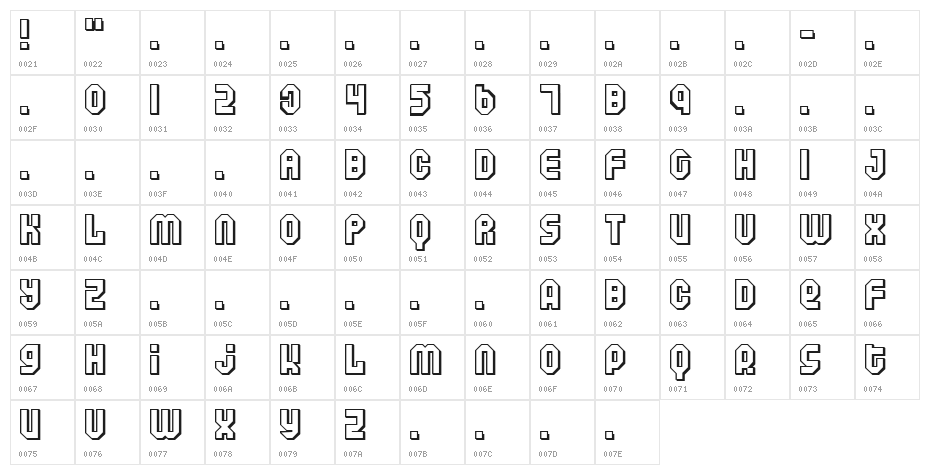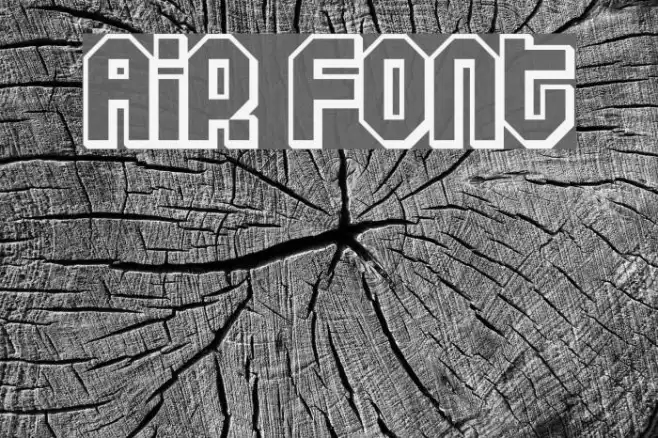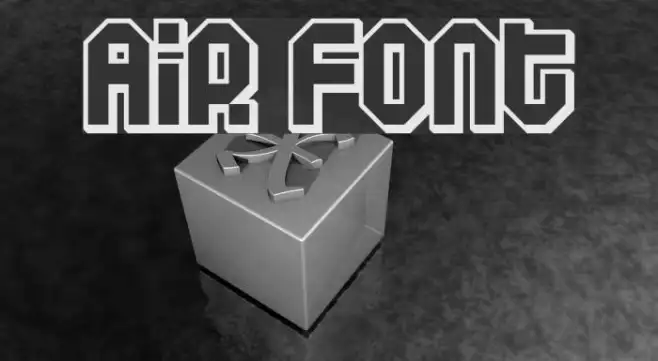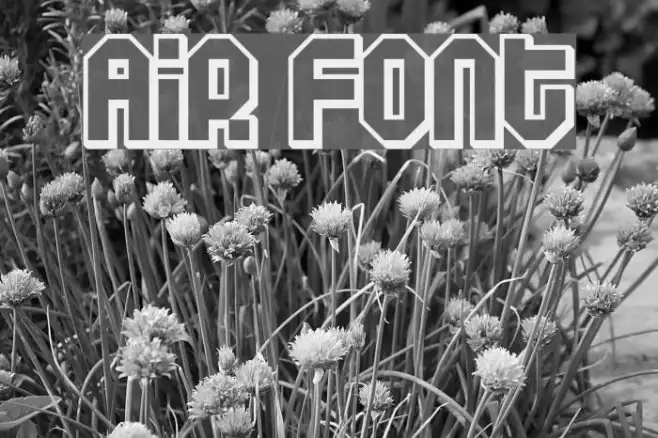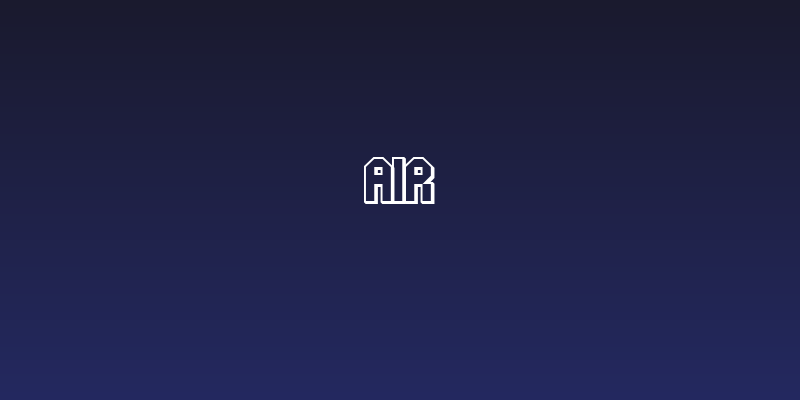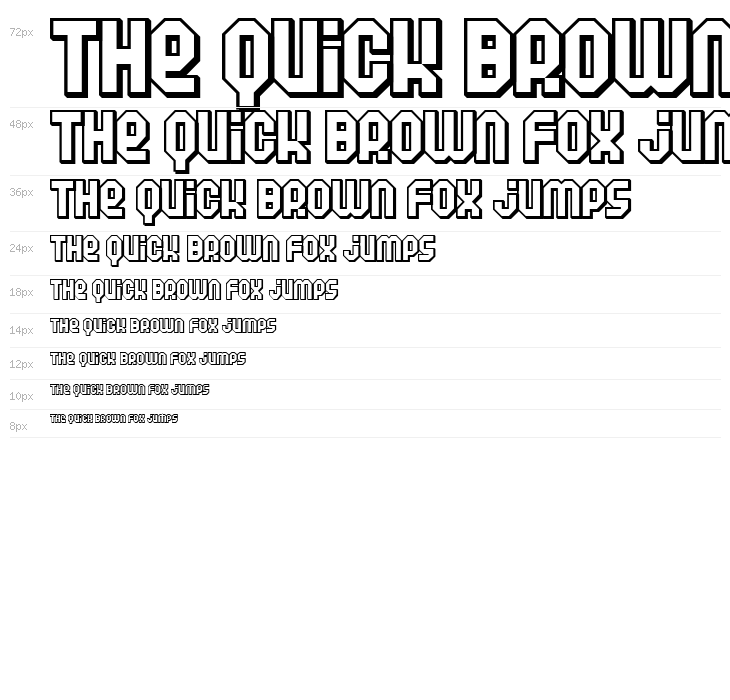
Air Font
Air Description
This font features a bold, geometric design with a three-dimensional effect, achieved through the use of thick outlines and angular shapes. The characters are constructed with straight lines and sharp angles, giving them a modern and futuristic appearance. The uppercase and lowercase letters maintain a consistent style, with the lowercase being slightly smaller in scale but retaining the same structural elements. Numbers and special characters follow the same design principles, ensuring uniformity across the character set. The font's distinct style makes it highly suitable for projects that require a strong visual impact.
| Proposed Projects | Ideal for branding, posters, video game graphics, and any project needing a modern, impactful look. |